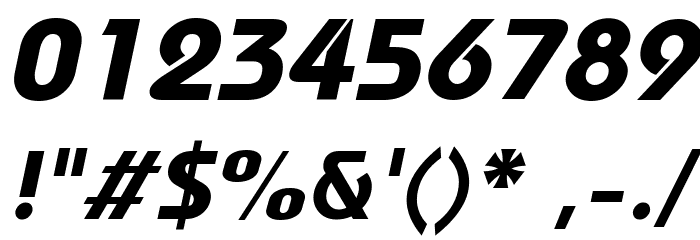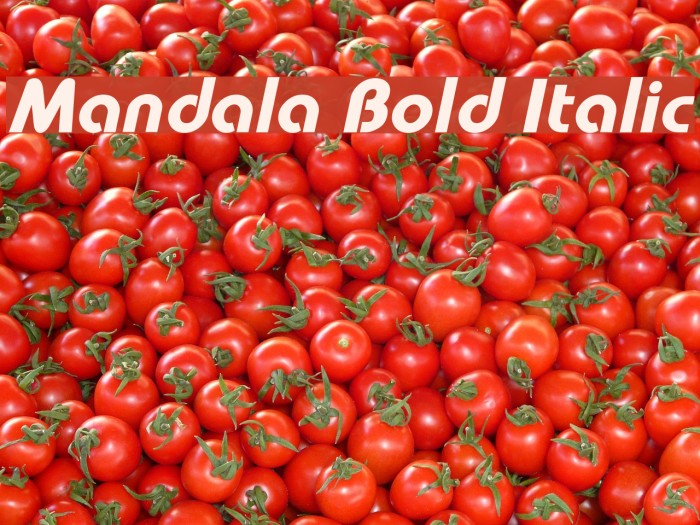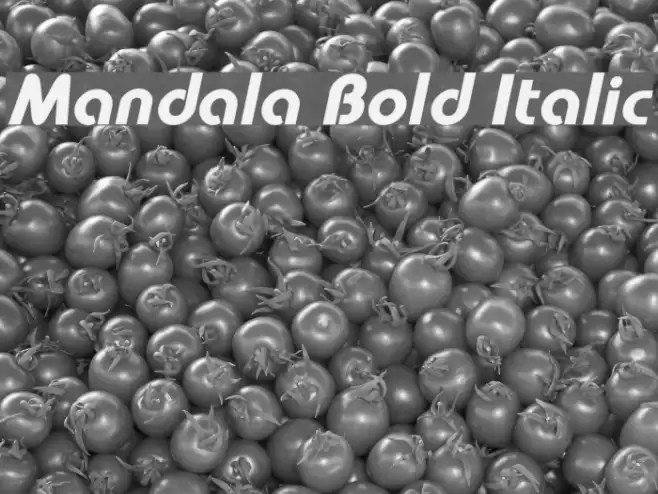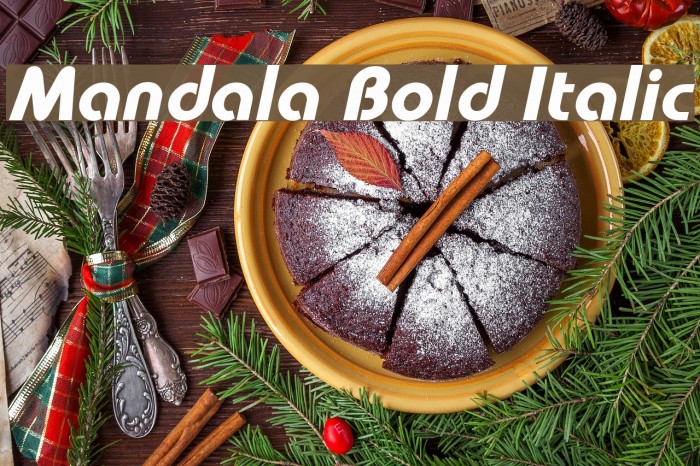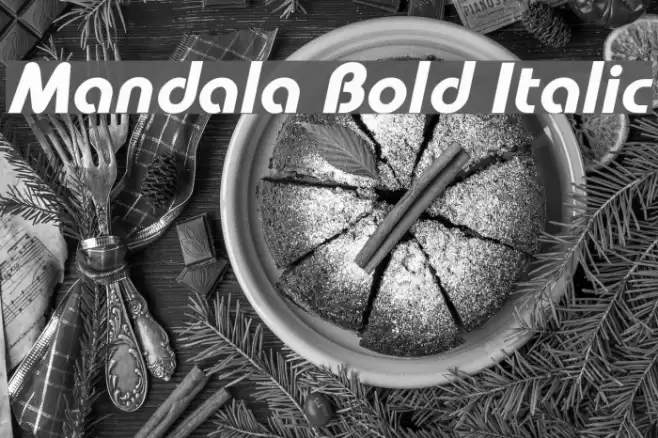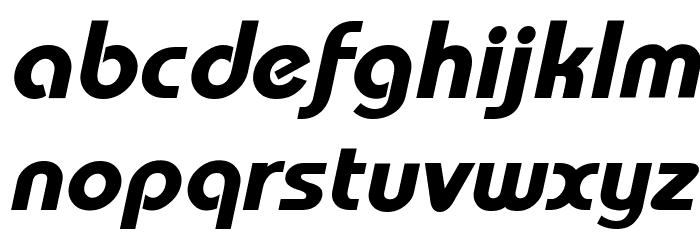
Mandala Bold Italic Font
Mandala Bold Italic Description
This font features a bold and italicized style, characterized by its dynamic and forward-leaning slant. The letters are robust with a strong presence, making them ideal for attention-grabbing designs. The strokes are consistent in thickness, providing a uniform appearance across all characters. The rounded edges and smooth curves give it a modern and sleek look, while the italic angle adds a sense of motion and energy. The numerals and special characters maintain the same bold and italicized characteristics, ensuring a cohesive look throughout. This font is versatile, suitable for various design needs where a bold statement is required.
| Proposed Projects | Ideal for headlines, posters, branding, and advertising where a strong and modern impression is needed. |